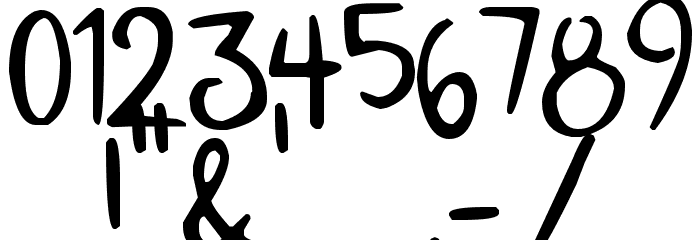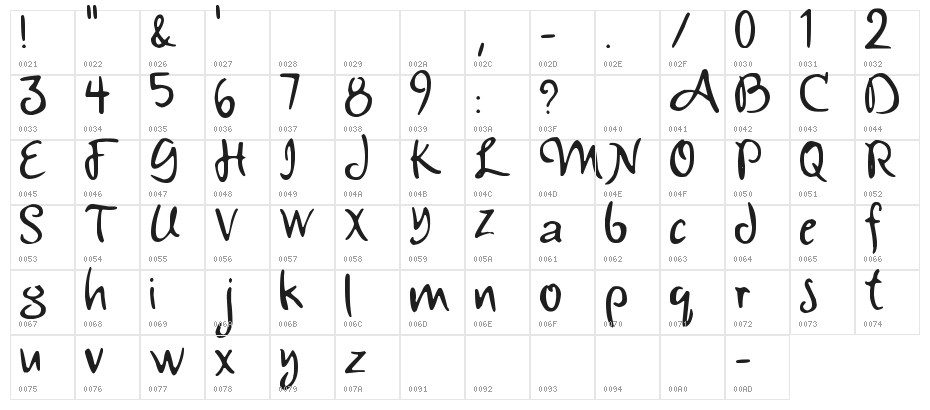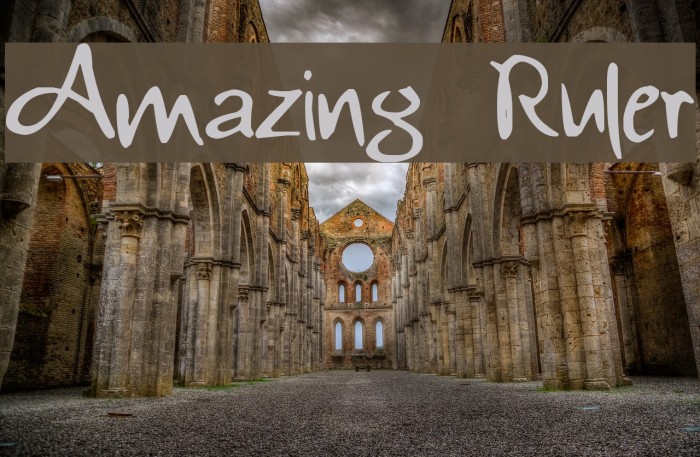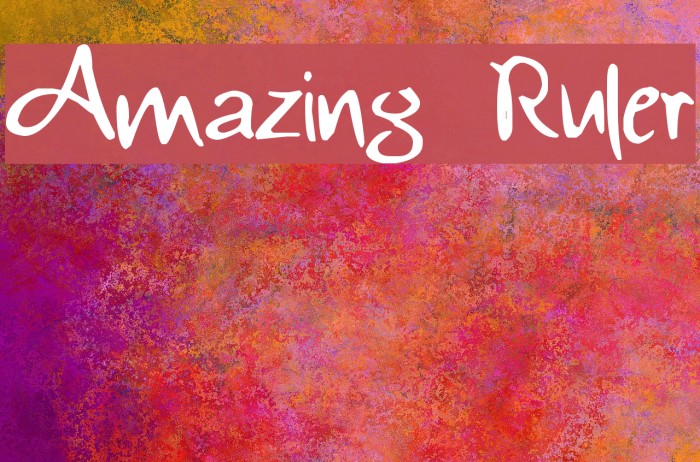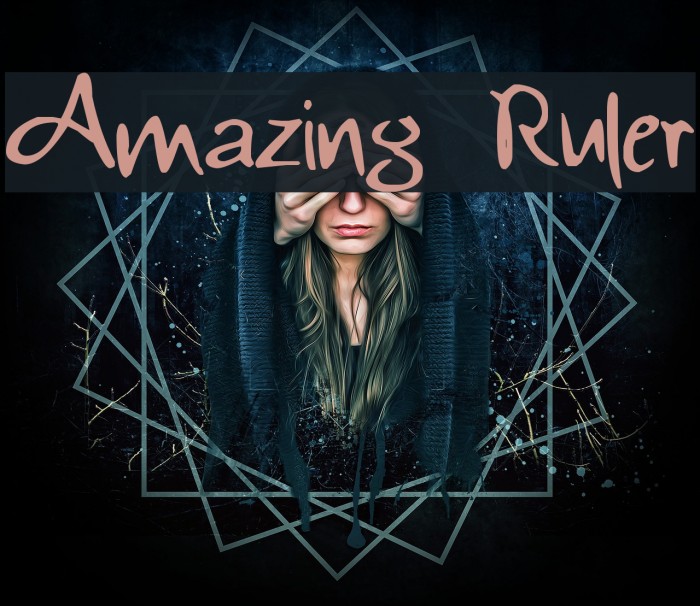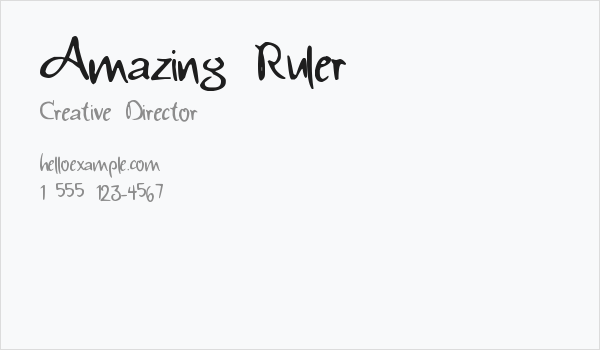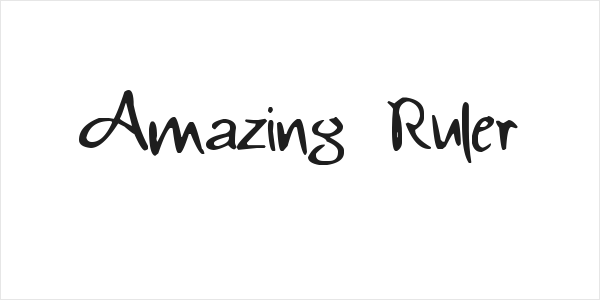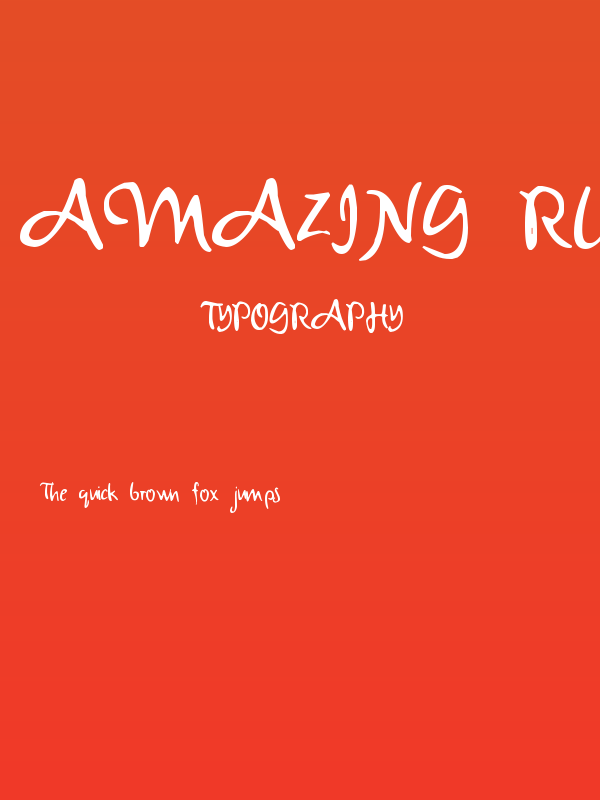
Amazing Ruler Font
Amazing Ruler Description
This font exhibits a playful and dynamic handwritten style, characterized by its fluid and organic letterforms. The uppercase letters are bold and expressive, with a slight slant that adds to their energetic appearance. The lowercase letters maintain a consistent flow, enhancing the casual and approachable feel. The numerals are rounded and maintain the same lively character as the letters. Special characters are integrated seamlessly, ensuring versatility in various design contexts. The overall impression is one of creativity and spontaneity, making it suitable for projects that require a personal touch.